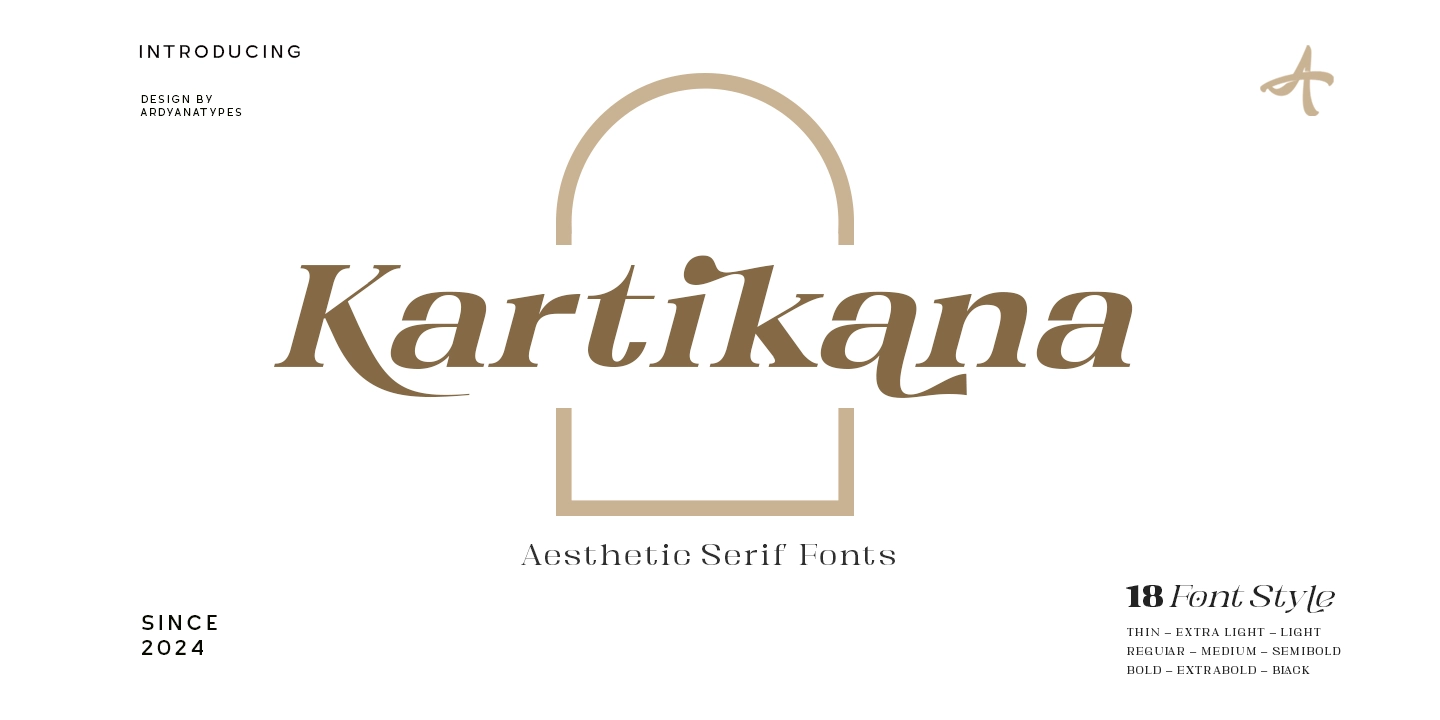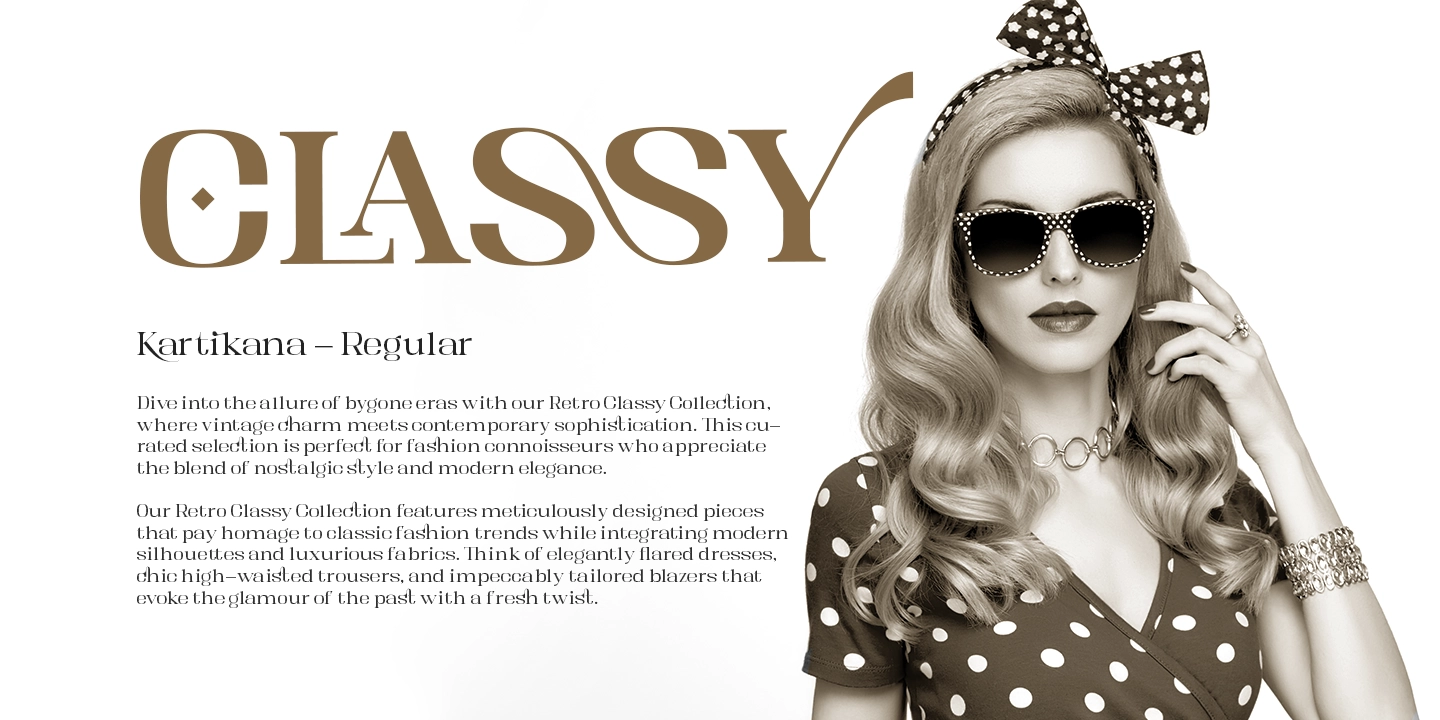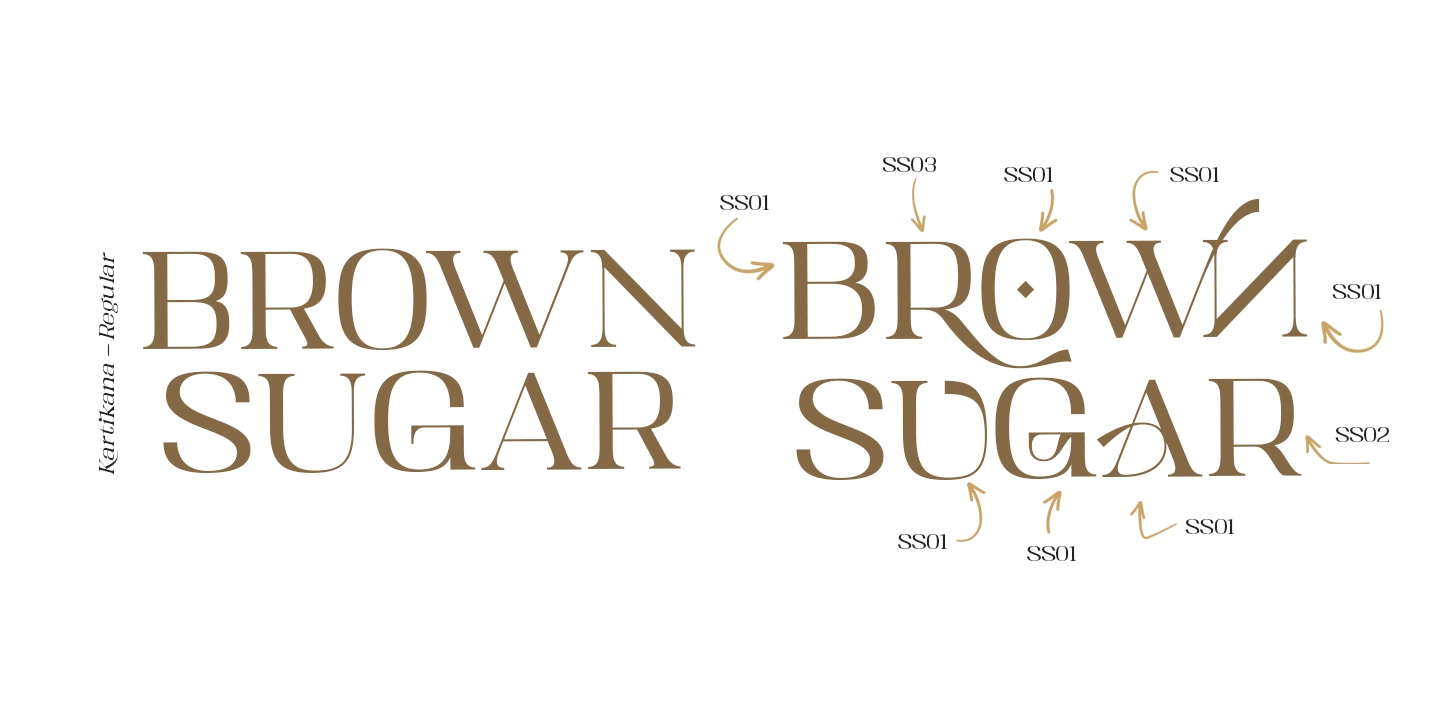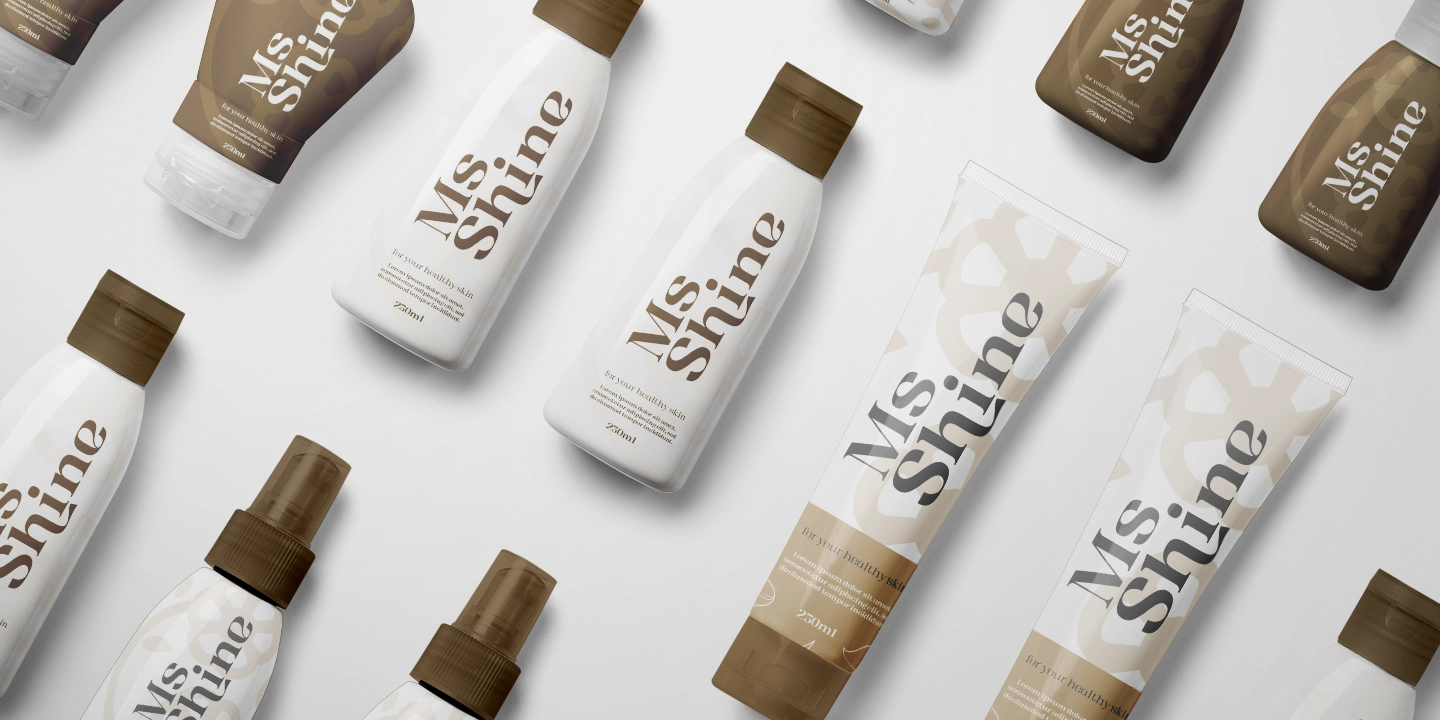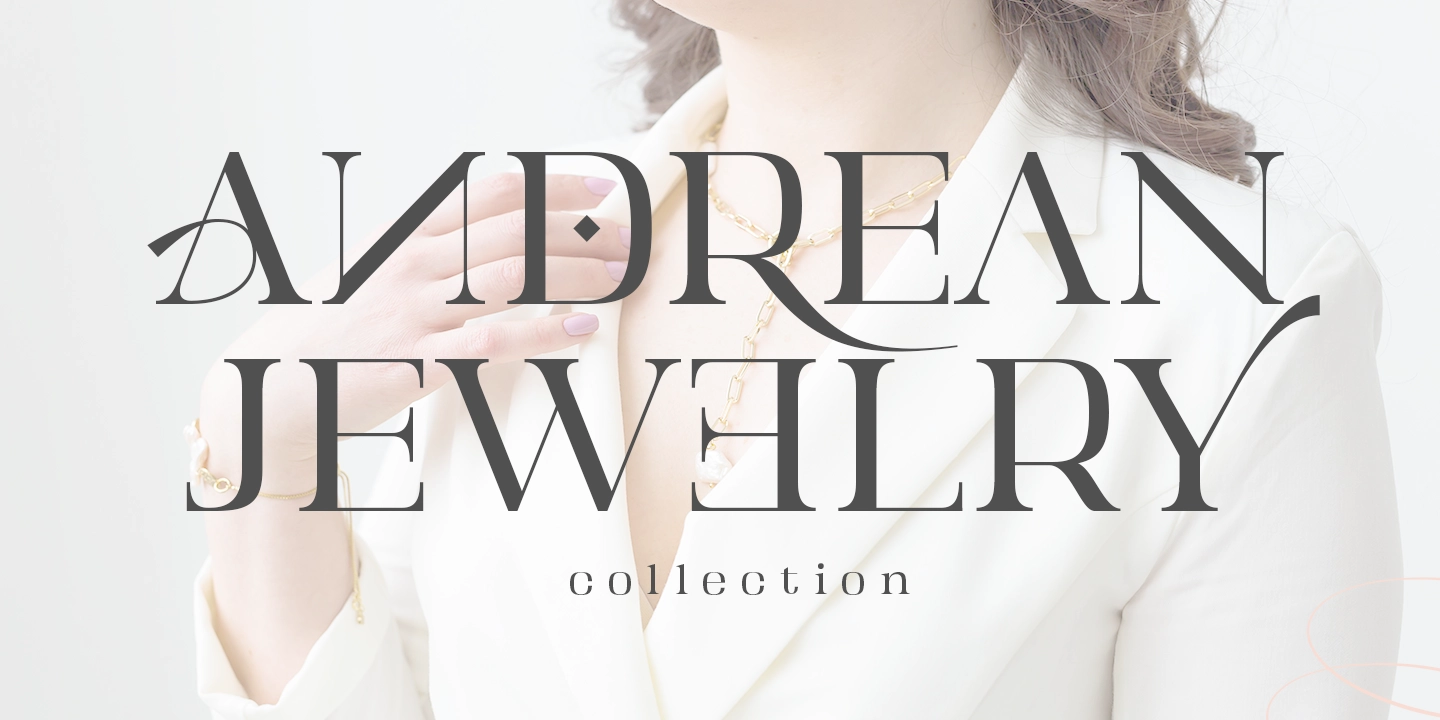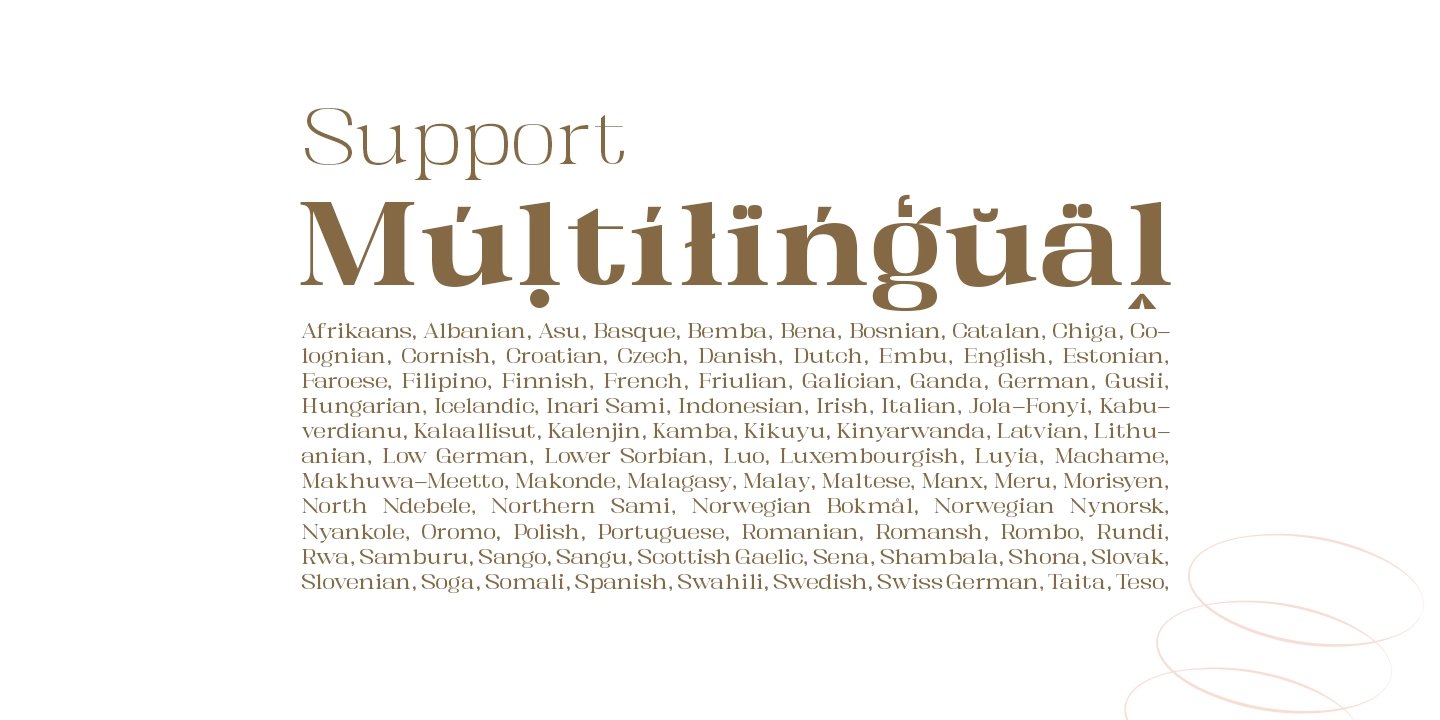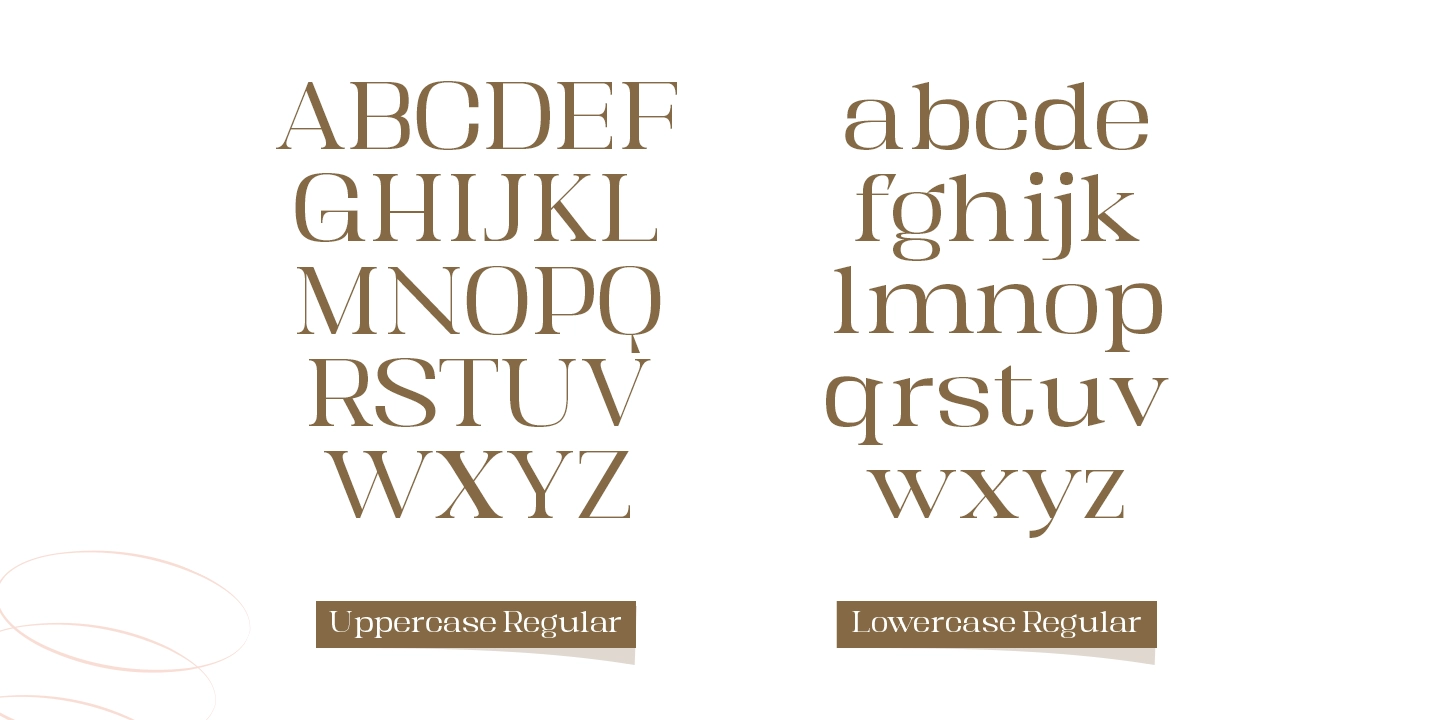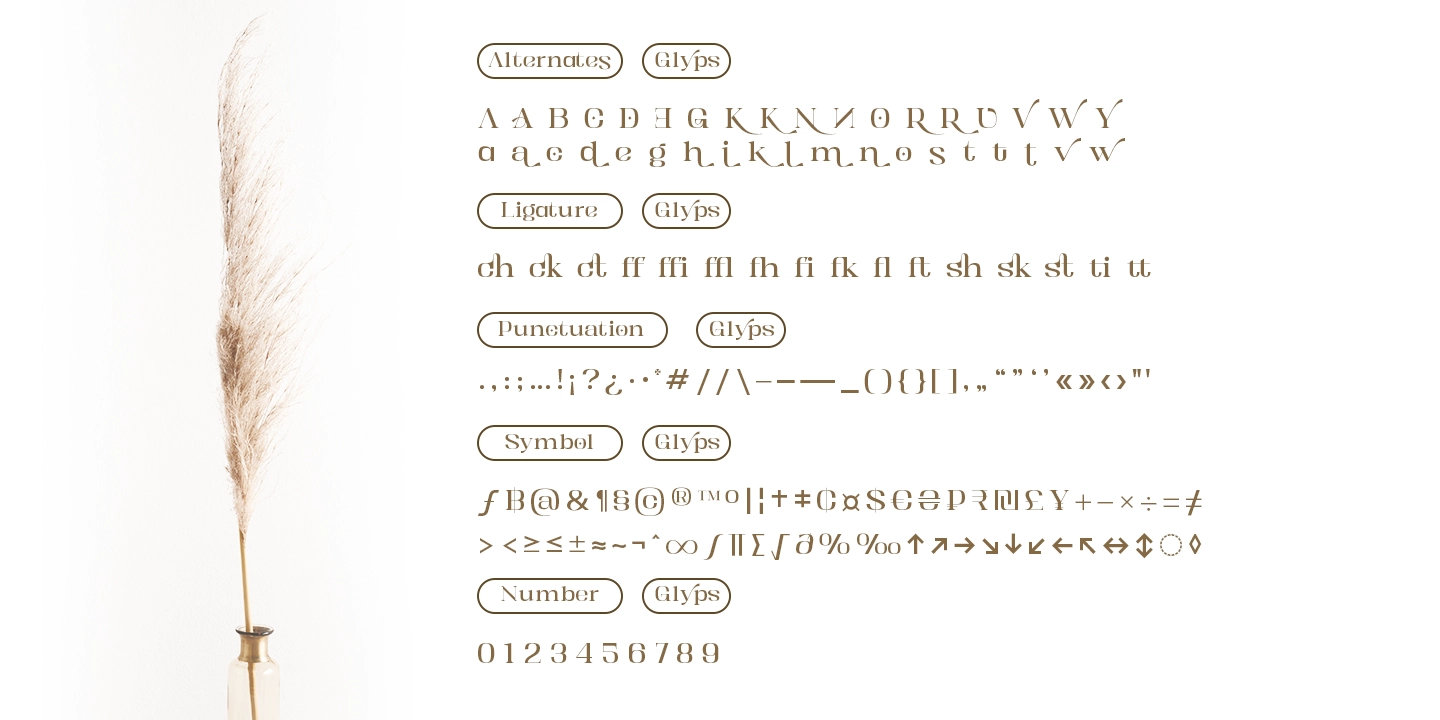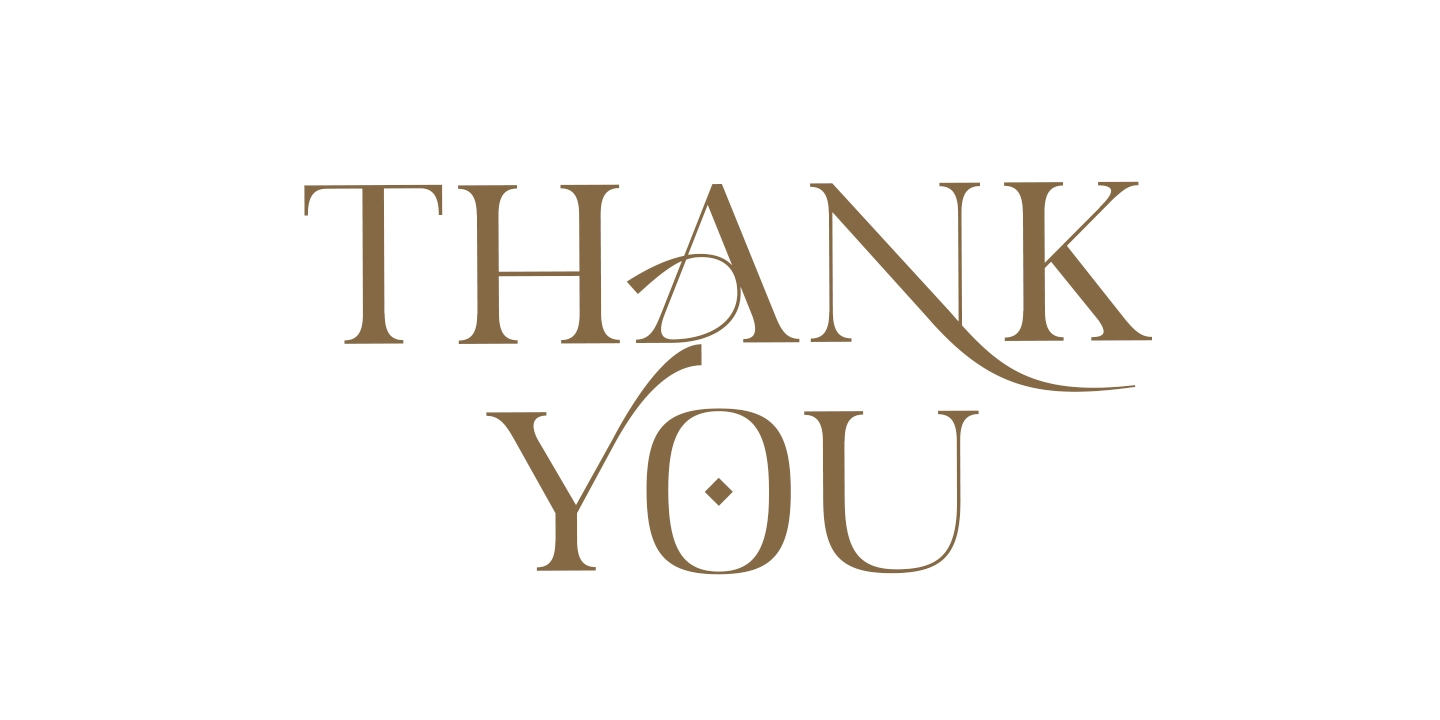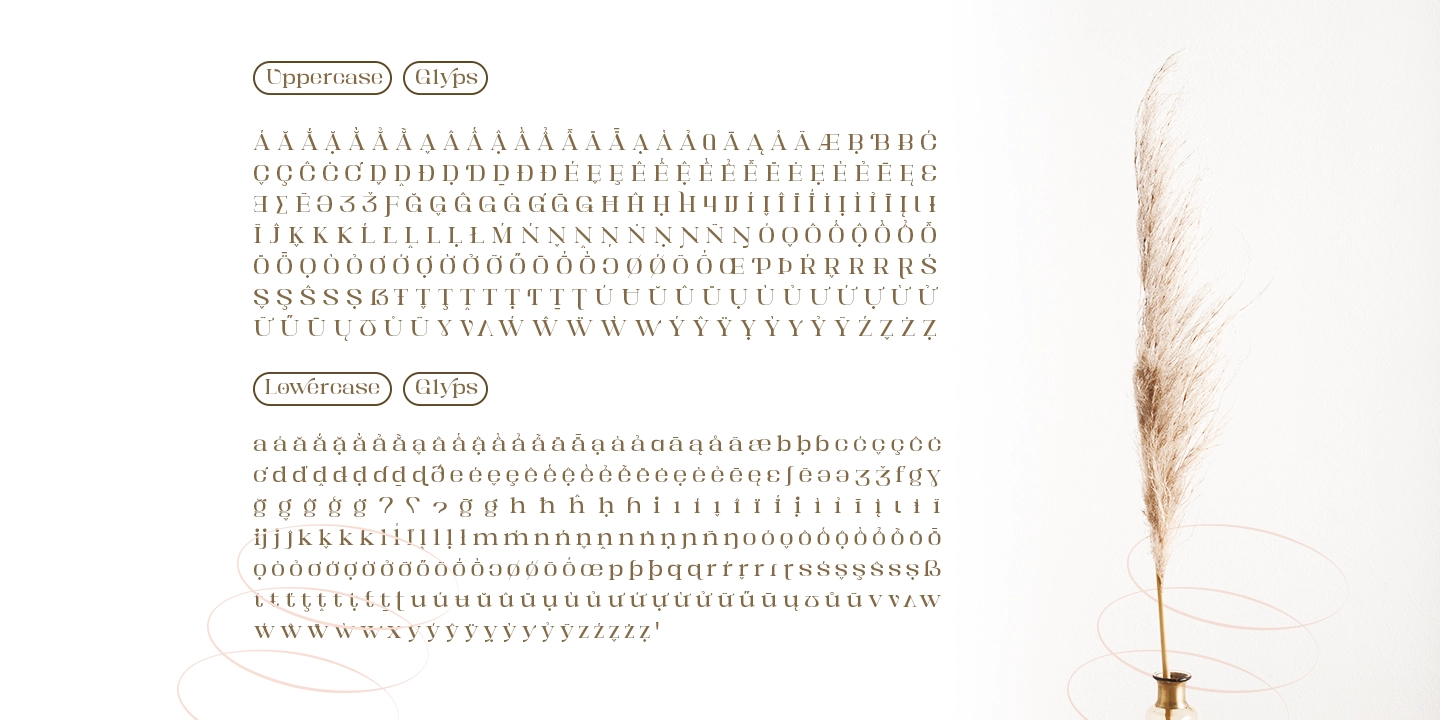
Kartikana Serif
Kartikana is a serif font that combines classic elegance with a modern touch, resulting in stunning typography that exudes elegance. Inspired by the latest modern font trends, Kartikana comes with a very relevant and chic design, in line with the current popular styles.
Kartikana offers an OpenType feature that allows using a wide variety of styles in one font, providing unlimited flexibility and creativity in your designs. With multilingual support, Kartikana can be used in multiple languages, conveying your message clearly and beautifully worldwide.
This font is perfect for various creative projects, from book covers, magazines, advertisements, and products to movie titles. Whatever your design needs, Kartikana is ready to help you express your vision with unmatched style.
• ffi ffi
• ffl ffl
• CH CH
• LA LA
• SS SS
• Th Th
• VE VE
• ch ch
• ck ck
• fh fh
• fk fk
• fl fl
• ft ft
• ik ik
• sh sh
• sk sk
• ti ti